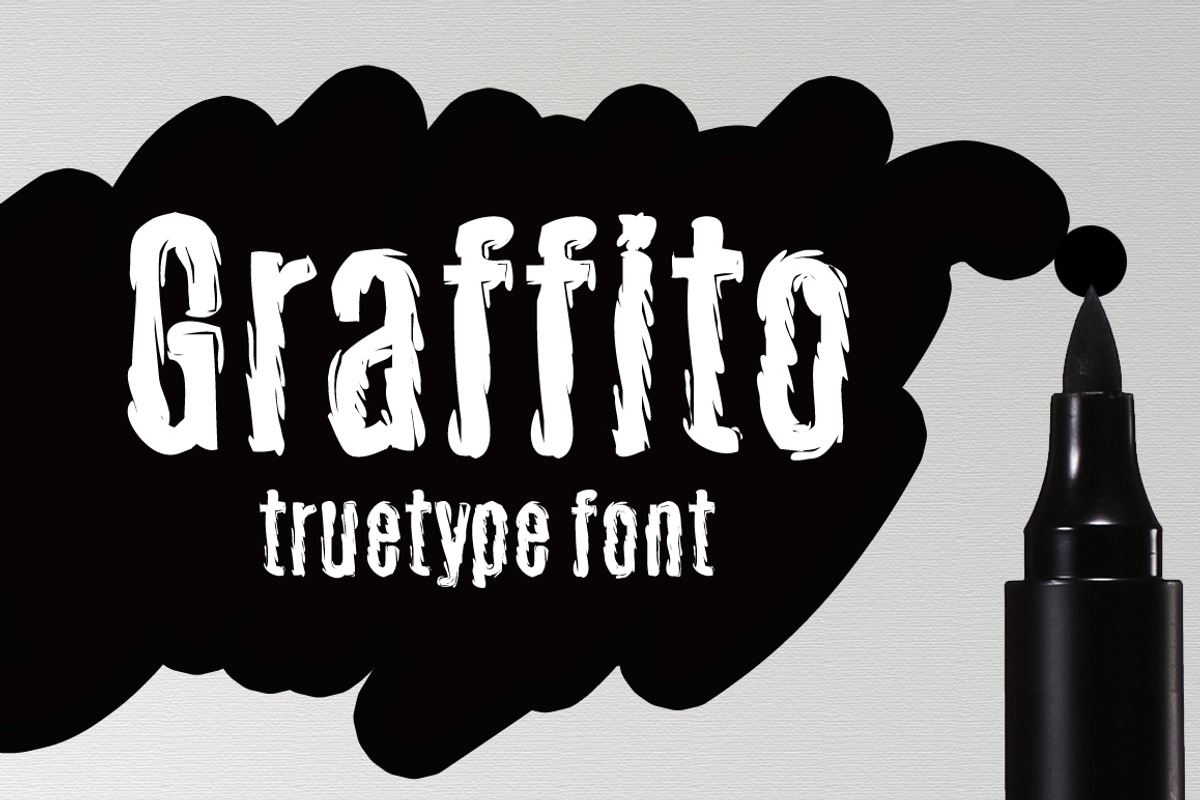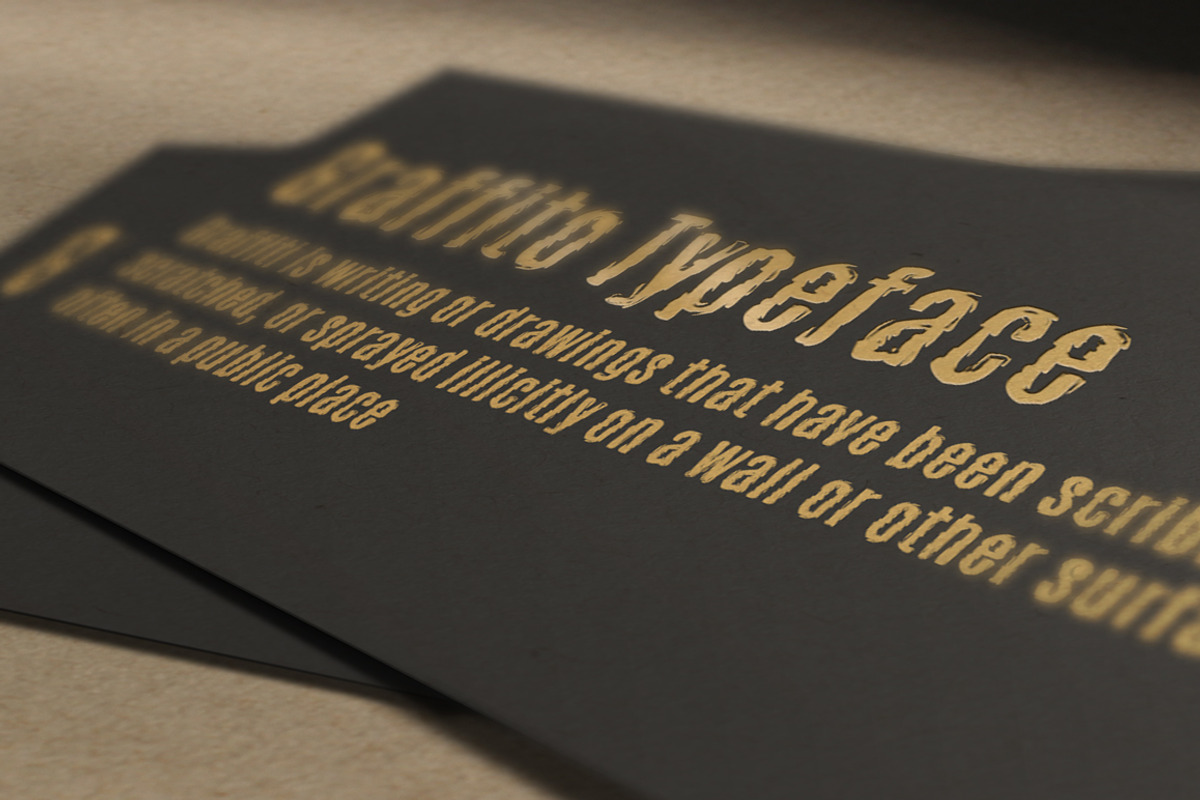
Graffito TrueType Font
Graffito TrueType Font by alphadesign is a font selected for branding, posters, packaging, typography.
- Graffito TrueType Font: Graffito is a painted graffiti font, contains 410 glyphs.
Why Graffito TrueType Font is worth a look
Graffito TrueType Font by alphadesign fits naturally into Branding, posters, packaging, typography.